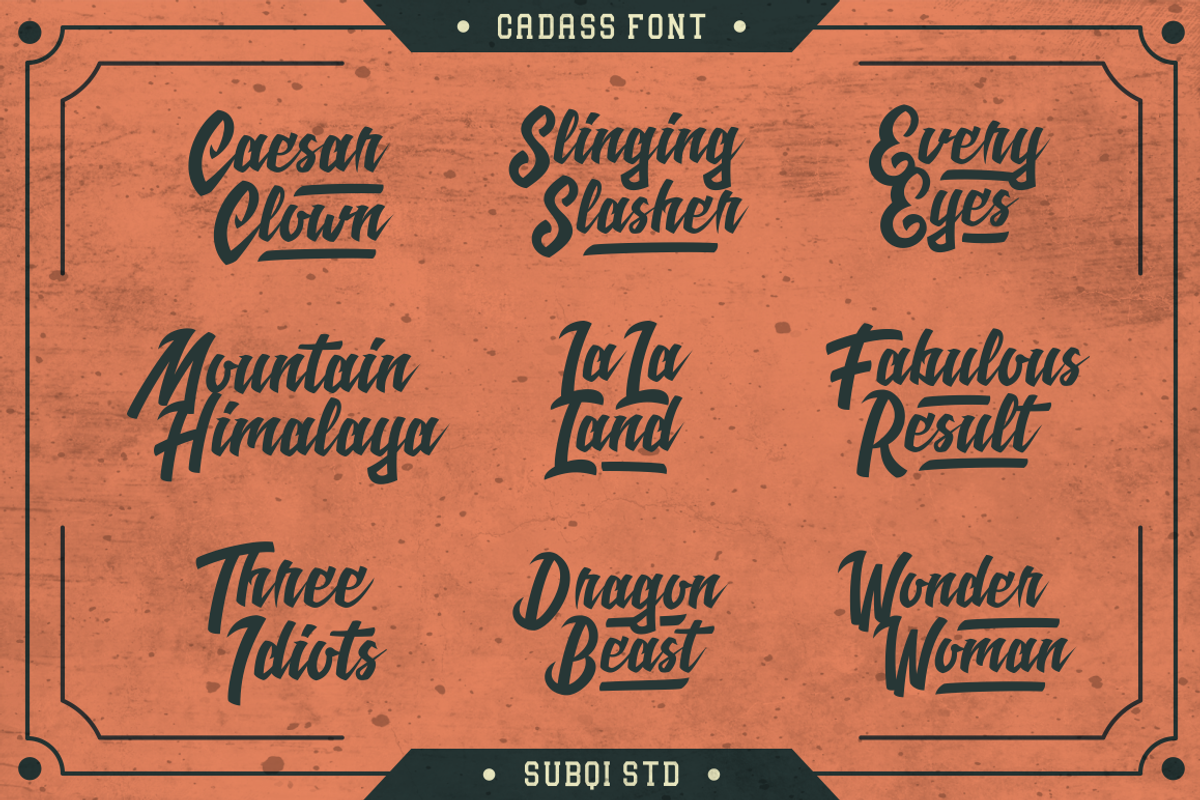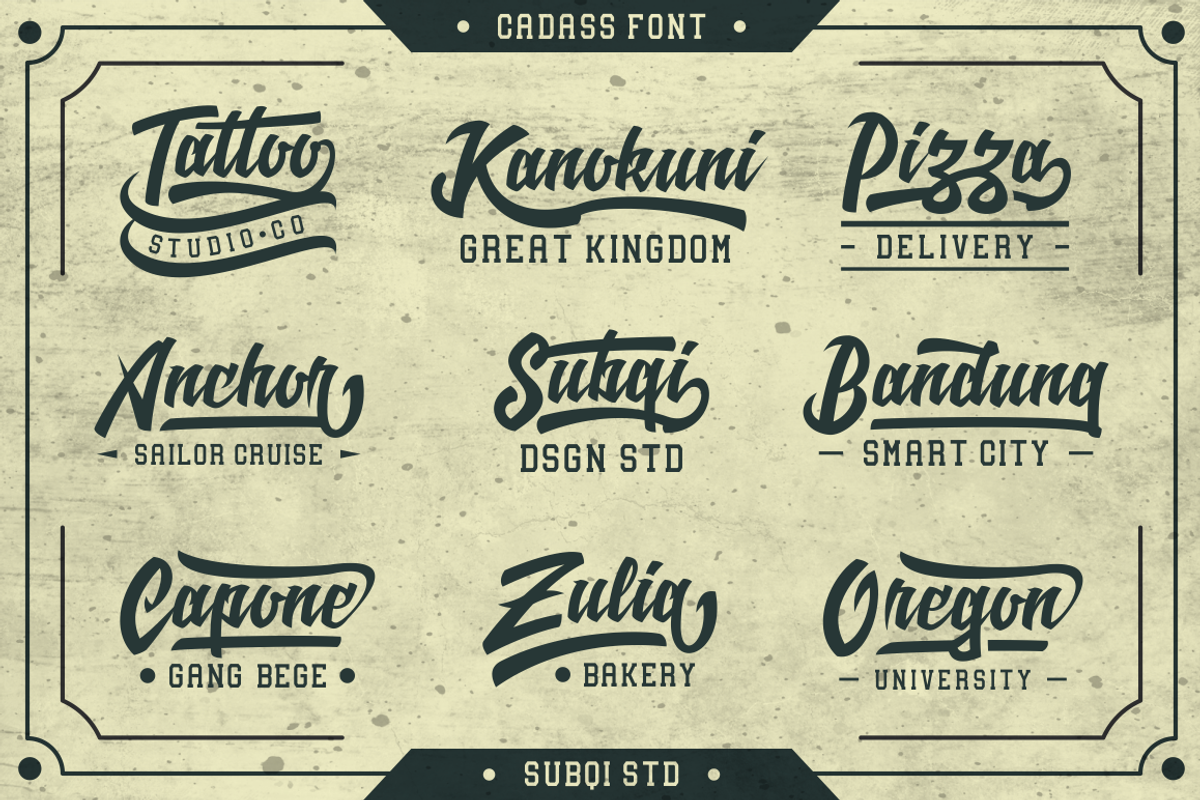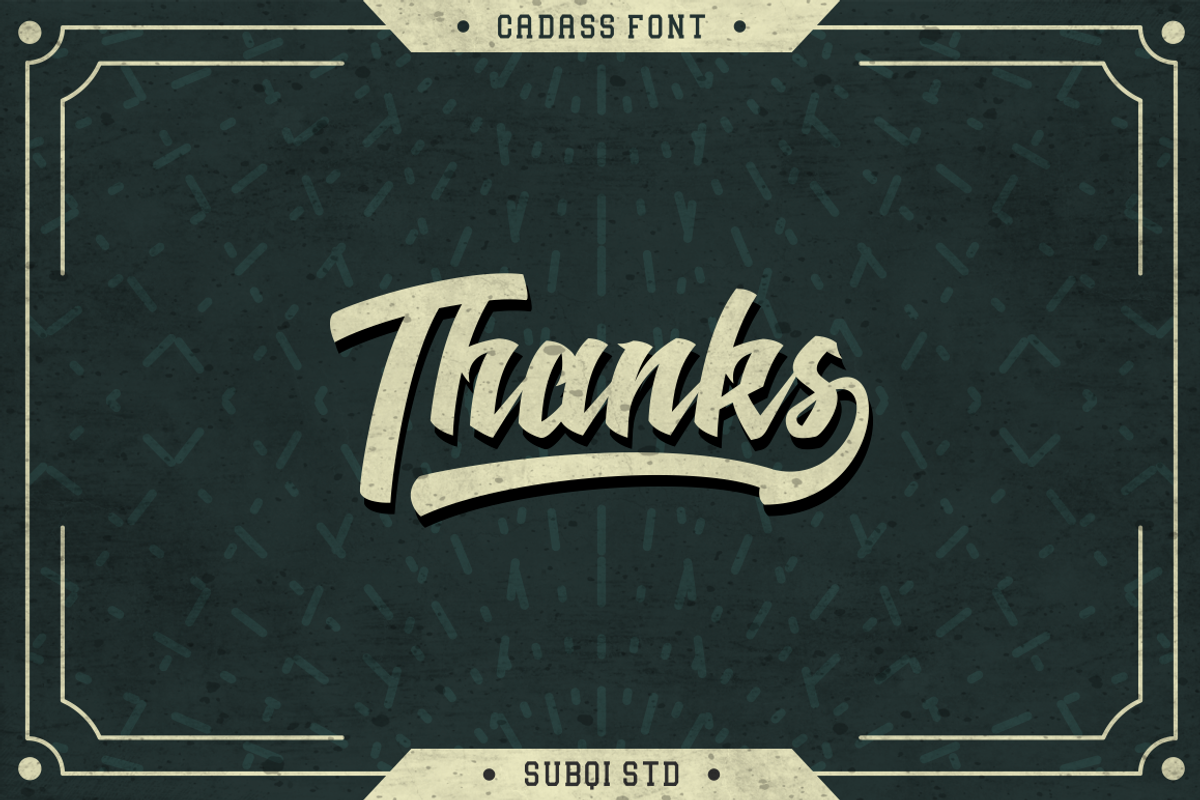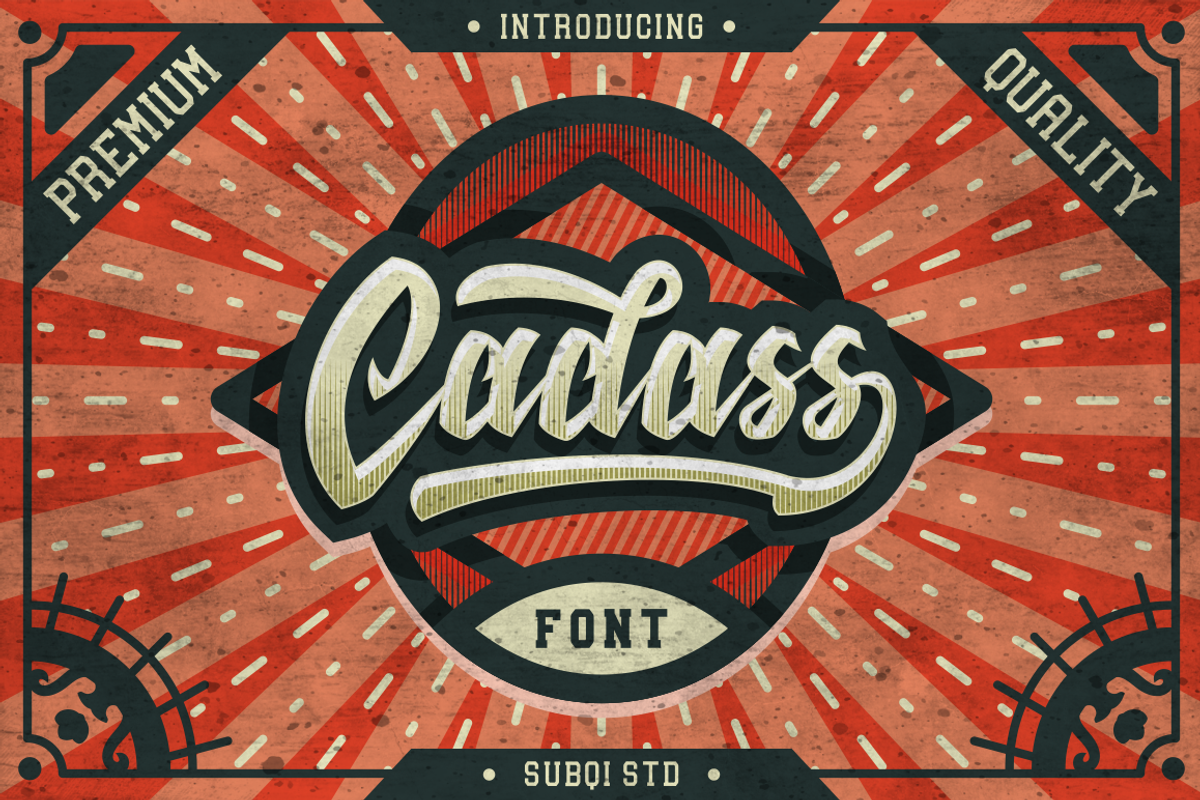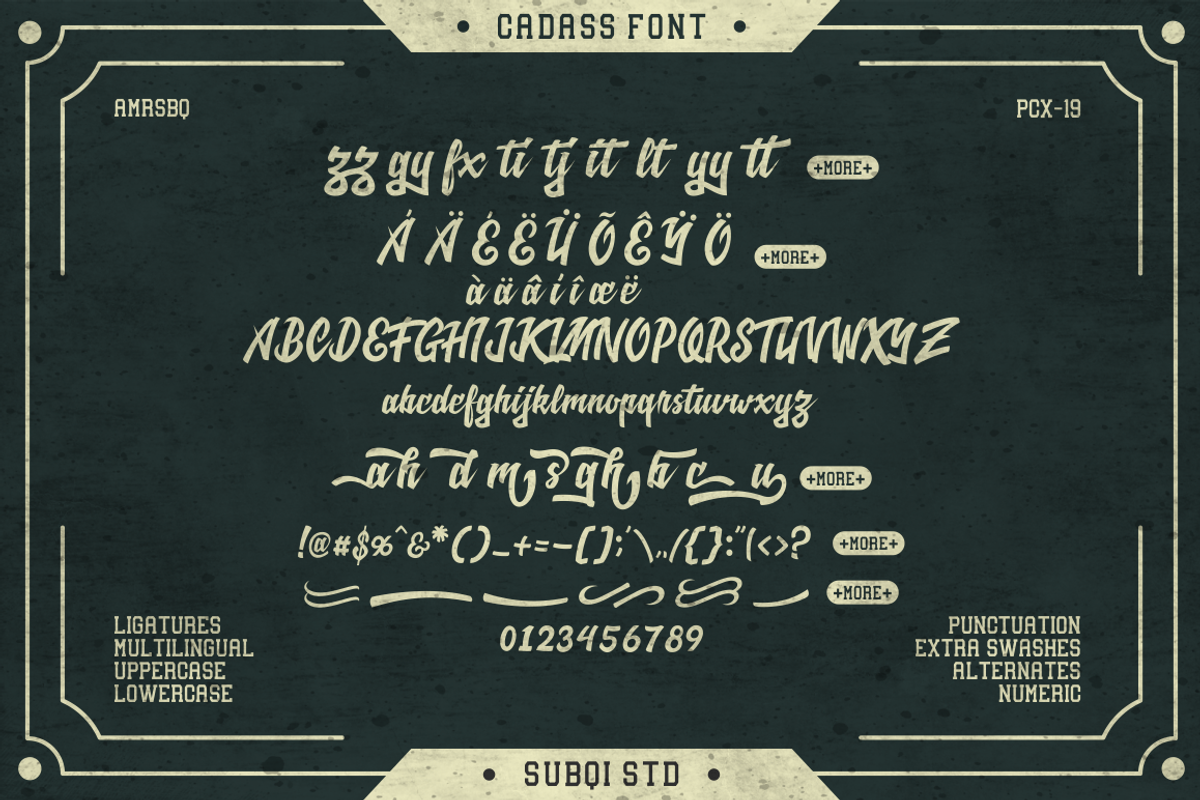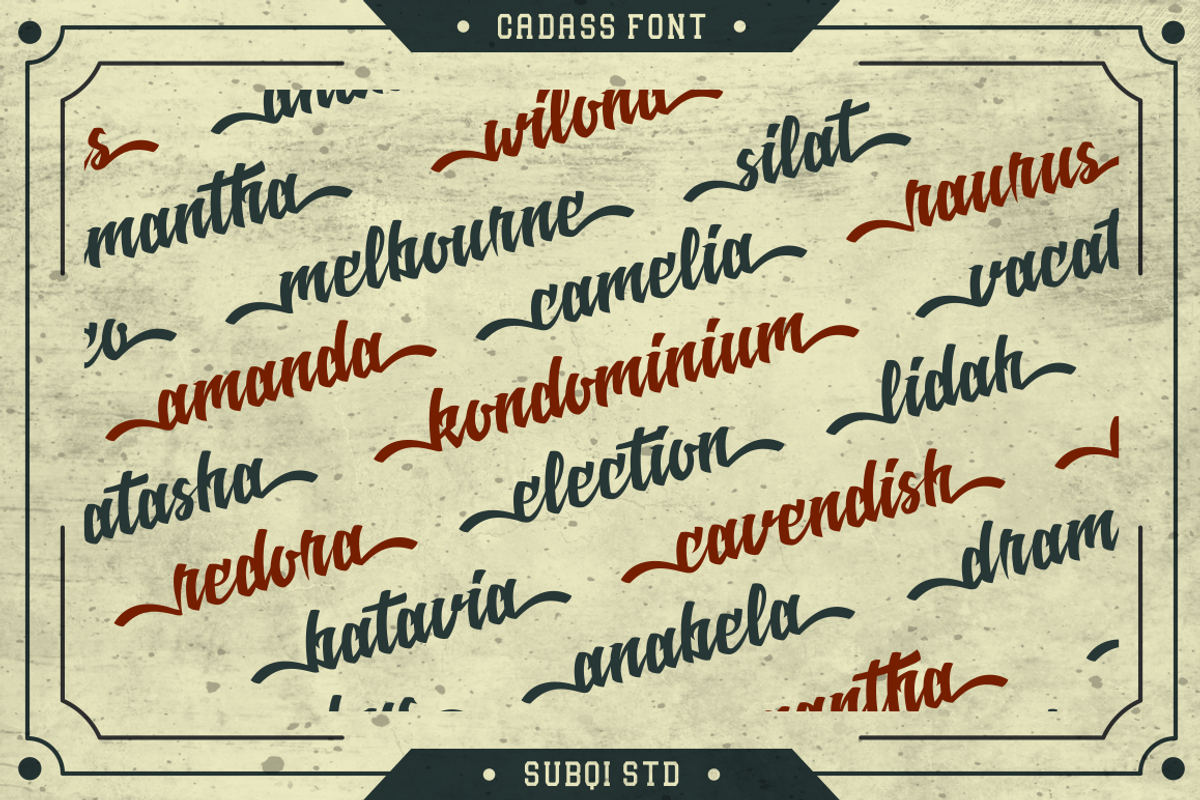
Cadass Font Duo
Cadass Font Duo by Subqi Std is a font selected for branding, posters, packaging, typography.
- It's called Cadass Script Font , It's included Script as main font and Serif version for display companion.
- 370+ Total Glyphs PUA Encoded ( Every characters have own unicode code / 100% Accessible ) Standard Character ( Uppercase, Lowercase, Numeri
Why Cadass Font Duo is worth a look
Cadass Font Duo by Subqi Std fits naturally into Branding, posters, packaging, typography.